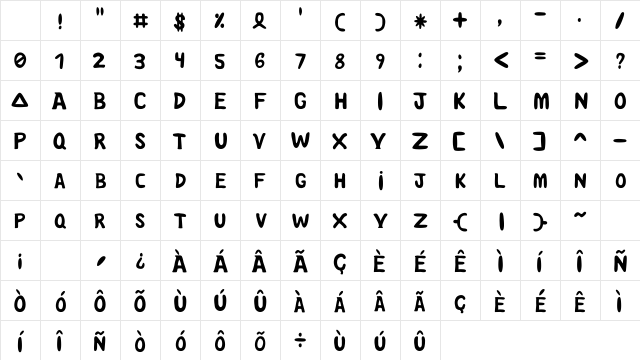
So Roque is a composed and adaptable typeface that performs quietly and consistently across a wide range of design contexts.
Pro Tip: Use So Roque in both headline and body roles to test its range before committing to a single application.